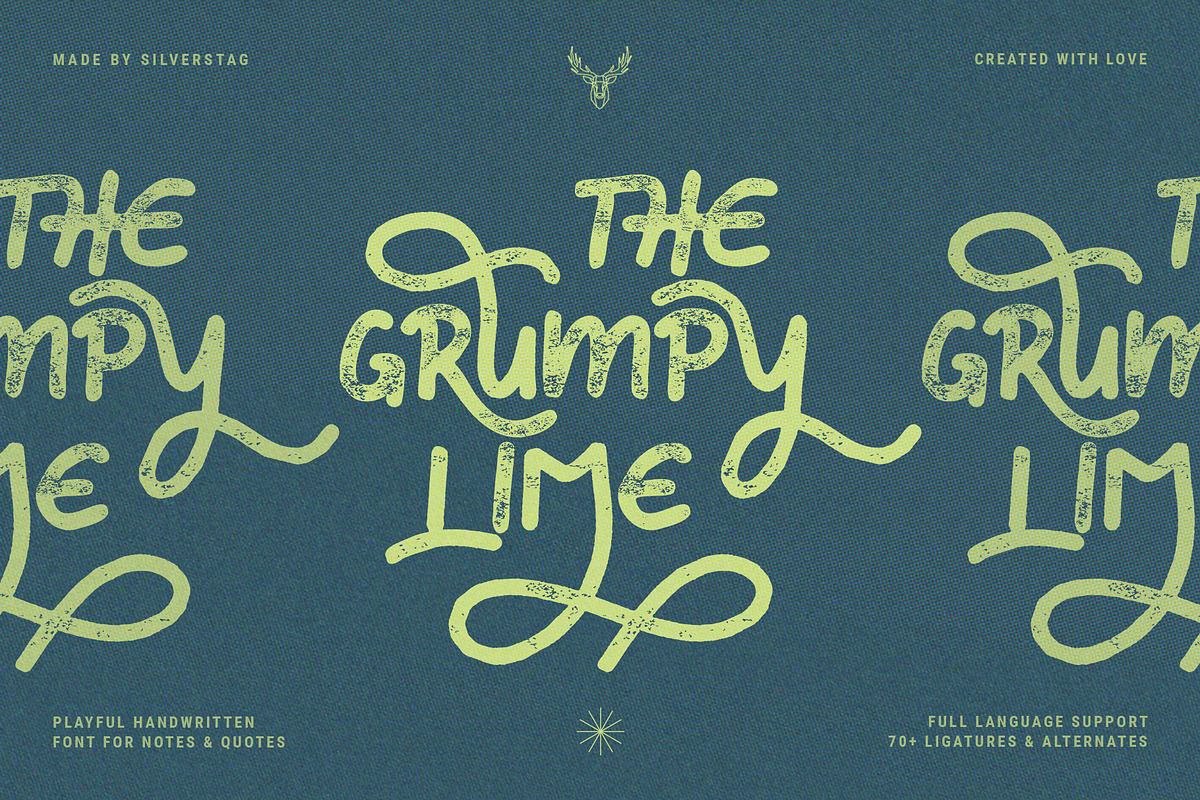
You must purchase this font for commercial use. However, you can download Grumpy Lime – Playful Ligature Font Free Download for testing purposes. Grumpy Lime is a fun, quirky font that features unique ligatures and playful, rounded letterforms. With its bold personality and cheerful design, this font is perfect for playful branding, children's designs, creative posters, social media graphics, and fun event invitations.
The playful ligatures in Grumpy Lime add an extra layer of creativity and uniqueness to your designs, allowing you to craft vibrant, eye-catching typography. Whether you're designing for a children's brand, an art project, or a lively event, this font brings energy and character to your work.